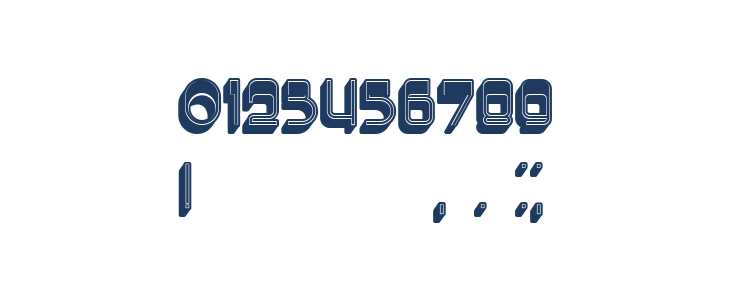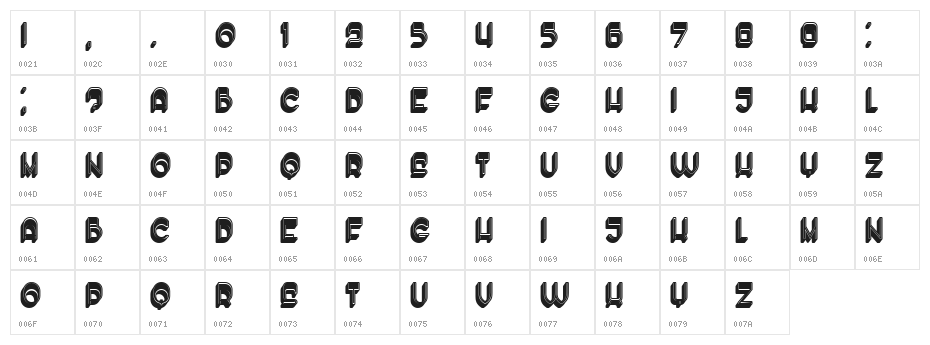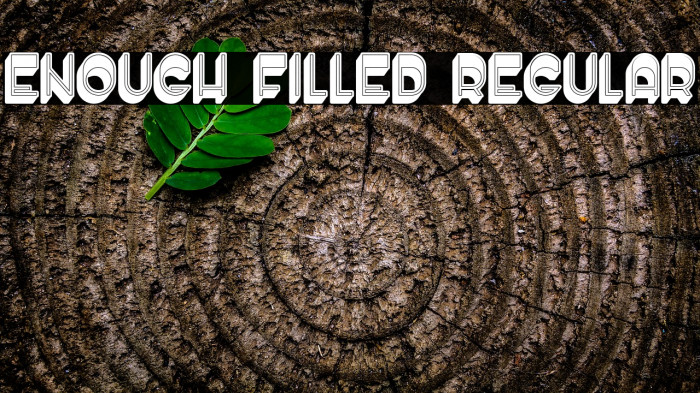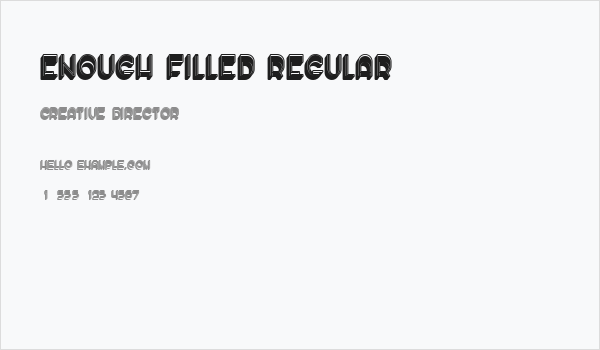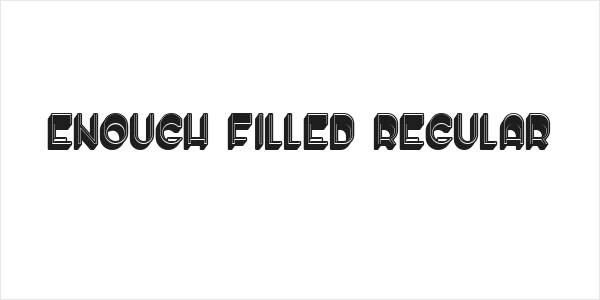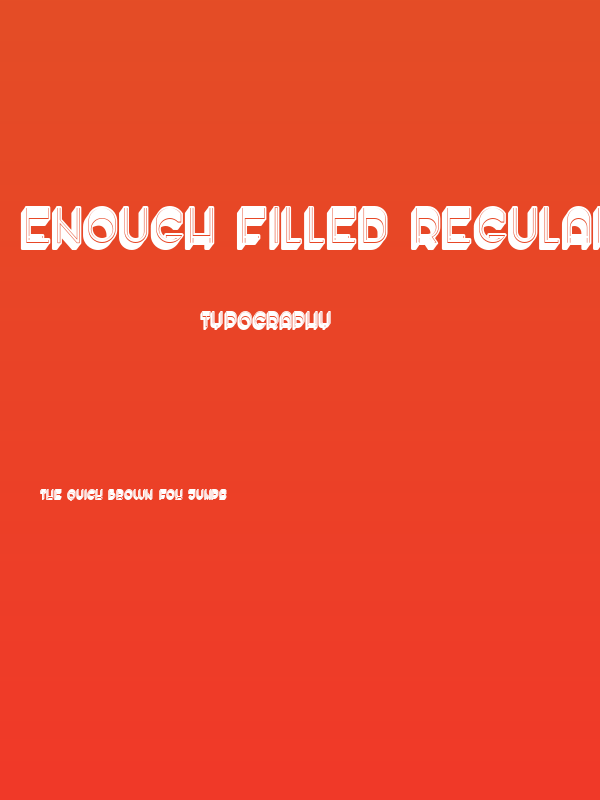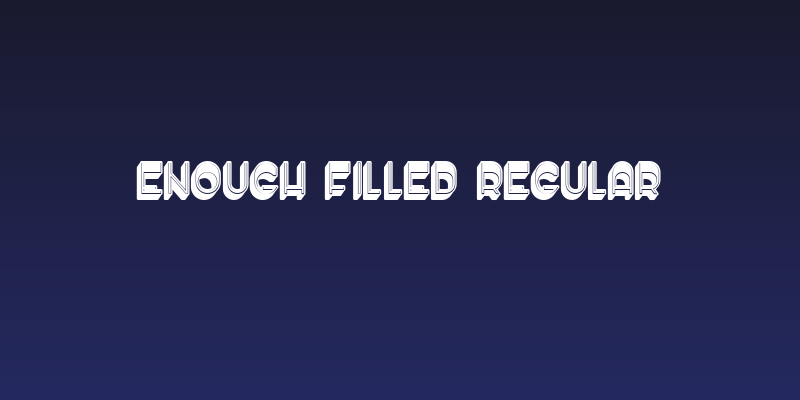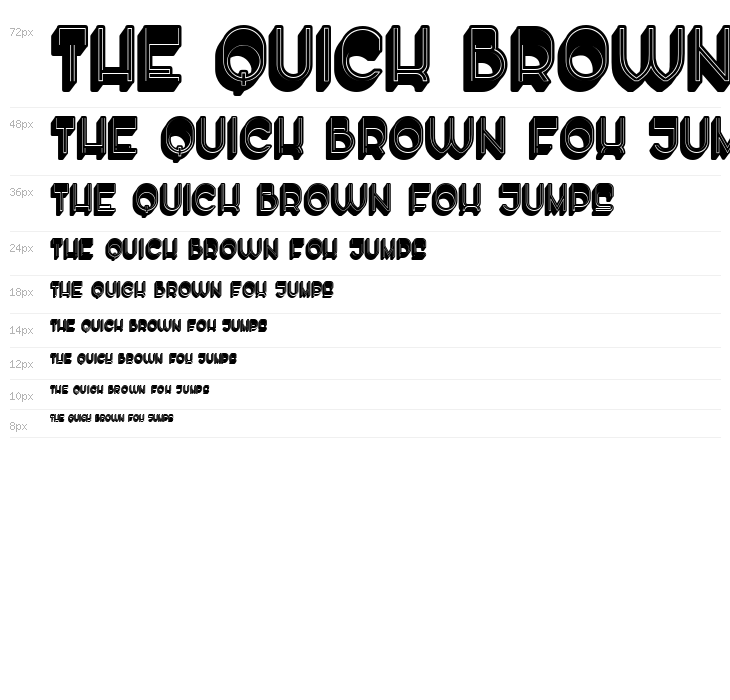
Enough Filled Regular Font
Enough Filled Regular Description
This font features a bold, geometric design with a filled, three-dimensional appearance. The characters are constructed with thick lines and sharp angles, creating a striking and modern aesthetic. The uppercase and lowercase letters maintain a consistent style, with unique cutouts and inline details that add depth and interest. Numbers and special characters follow the same bold and structured design, ensuring uniformity across all glyphs. The font's distinct look makes it ideal for attention-grabbing headlines and creative projects.